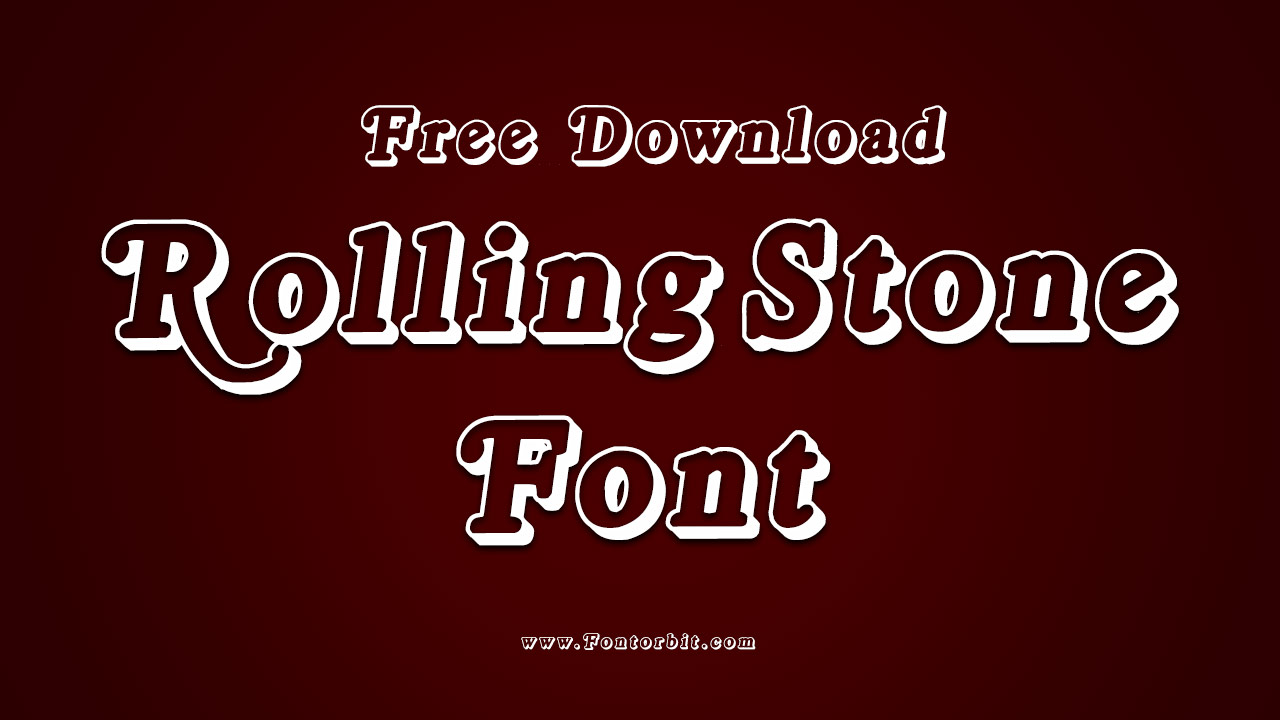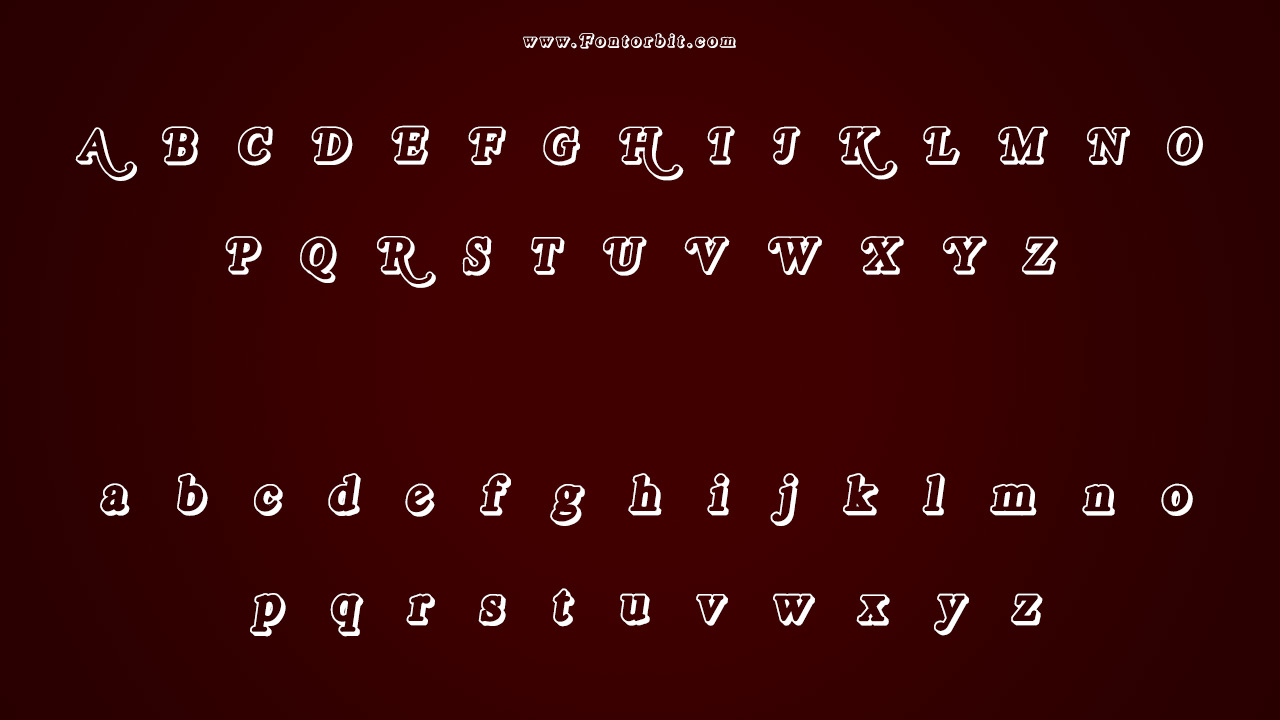
The actual font in Rolling Stone magazine is Royal Acidbath. This striking display serif typeface was designed by Sharkshock.
With its bold, rock-inspired design, this font is perfect for making a statement in various creative projects. Its unique style adds a distinctive edge to titles, headers, and promotional materials, capturing attention with its powerful and dynamic look.
The Rolling Stone Font Found In Use
The Rolling Stone Font is often used across various media, particularly in music and entertainment magazines, where its bold, eye-catching design makes a striking impact.
It is also featured in promotional materials and album covers for rock bands and music events, enhancing its appeal with its distinctive style.
- Titles
- Headers
- Music-related designs
- Promotional materials
- Album covers
- Magazine covers
- Editorial design
The Rolling Stone Font is a bold and eye-catching typeface that captures the essence of rock ‘n’ roll with its unique style.
Designed by Sharkshock, this display serif typeface stands out in various applications, from music magazines and promotional materials to creative projects and album covers. Its versatile nature makes it a valuable addition to any designer’s toolkit.
1.What Is The Rolling Stone Font?
The Rolling Stone Font is a display serif typeface created by Sharkshock. Its close similar is Royal Acidbath font, a distinctive, rock-inspired design and is available in Regular style.
6.What Are The Best Practices For Using The Rolling Stone Font In Design?
Use the font consistently for branding, ensure legibility, and pair it with complementary typefaces to enhance visual appeal.
7.What Are The Different Styles Available In The Rolling Stone Font?
Styles include Regular, Bold, and Italic, reflecting its bold and dynamic nature.
9.What Are The Design Principles Used In Creating The Rolling Stone Font?
Principles include legibility, visual impact, and reflecting the magazine’s rock music heritage.
10.What Are The Benefits Of Using The Rolling Stone Font In Design?
It creates a strong brand identity, connects with rock culture, and is versatile for various design applications.
11.What Is The Significance Of The Rolling Stone Font In Design?
It represents the iconic Rolling Stone magazine, connecting to its rock music heritage and cultural influence.